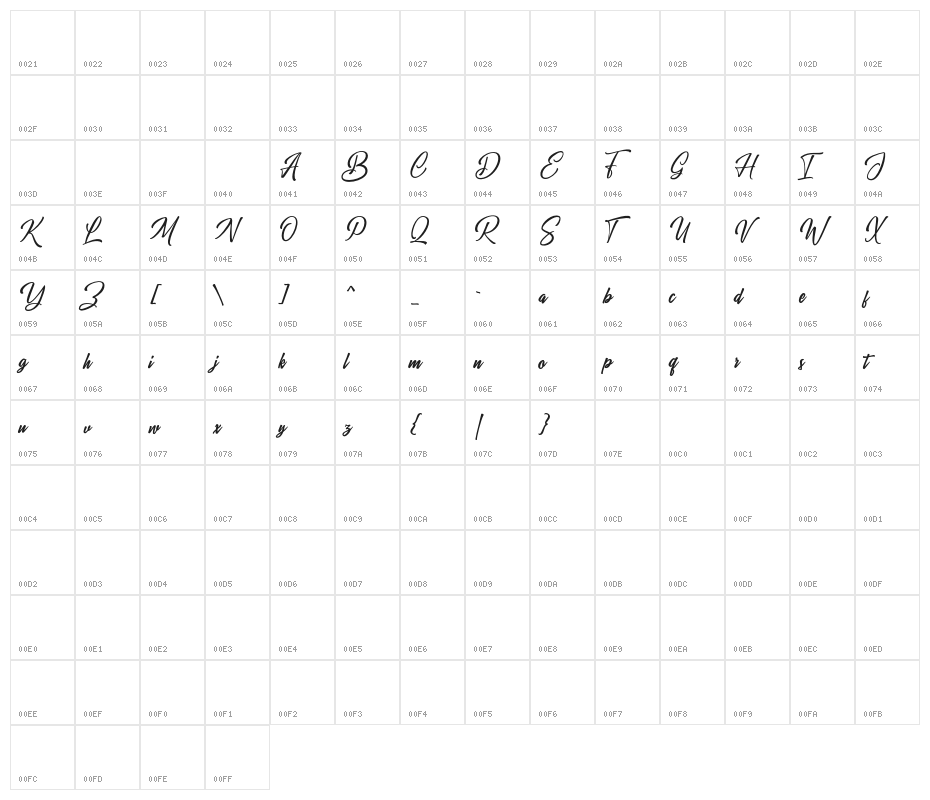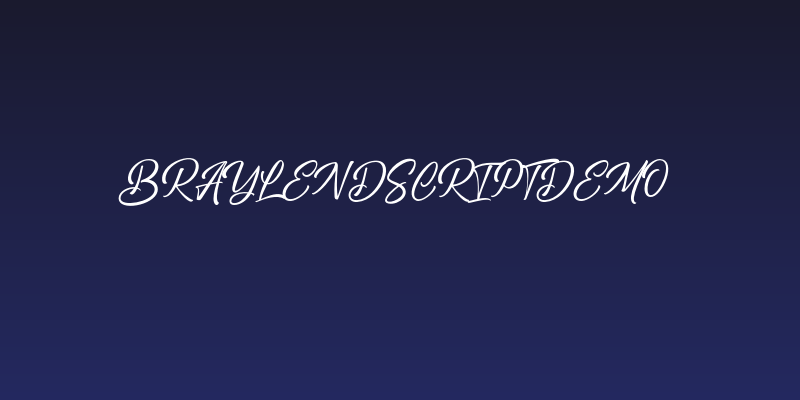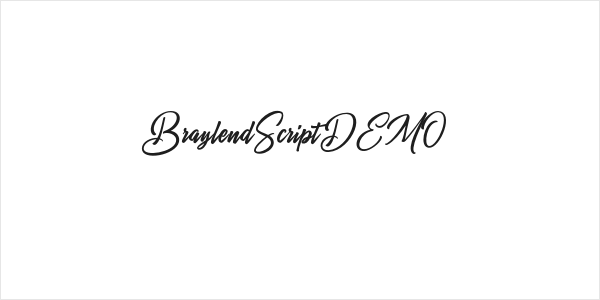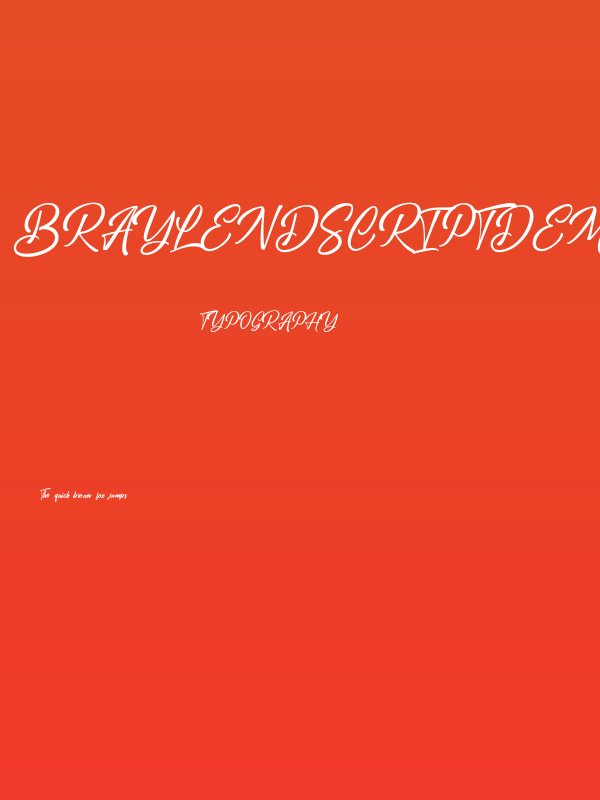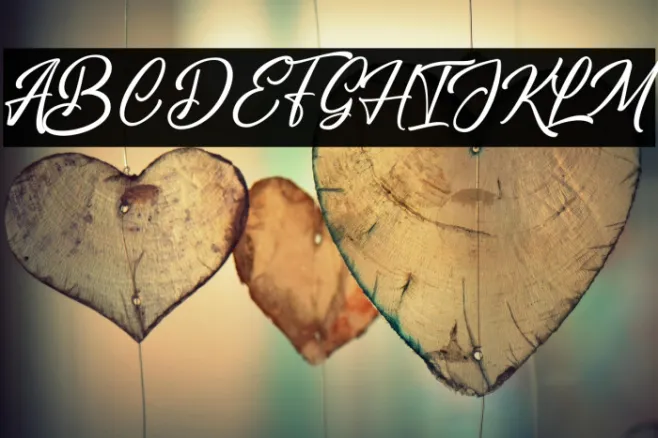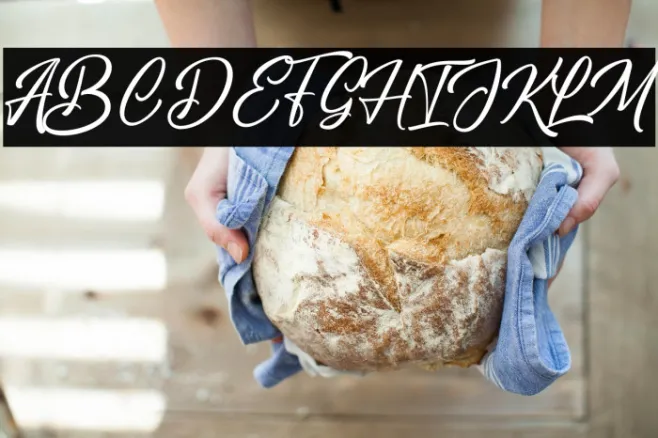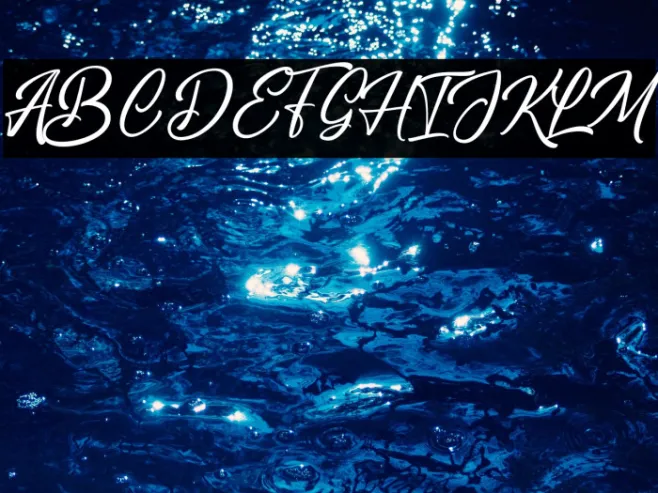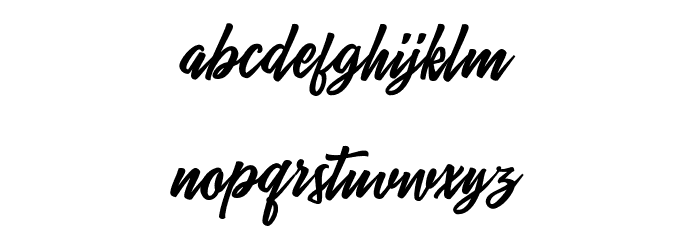
BraylendScriptDEMO Font
BraylendScriptDEMO Description
This font exudes elegance and fluidity, characterized by its cursive style that mimics natural handwriting. The uppercase letters are ornate and flowing, with intricate loops and swirls that add a touch of sophistication. The lowercase letters maintain a consistent style, with smooth connections between characters, enhancing readability while preserving the script's artistic flair. The overall appearance is both graceful and dynamic, making it suitable for projects that require a personal and stylish touch.
| Proposed Projects | Ideal for wedding invitations, greeting cards, branding, and any project that requires a personal, elegant touch. |